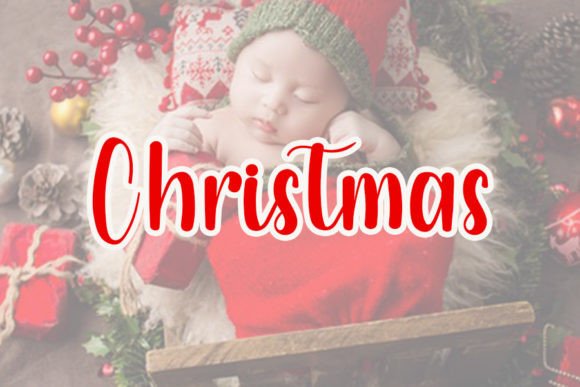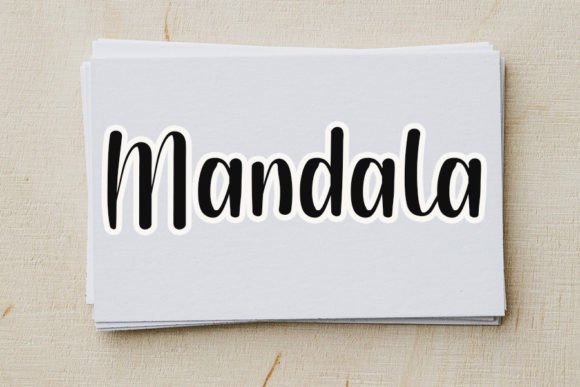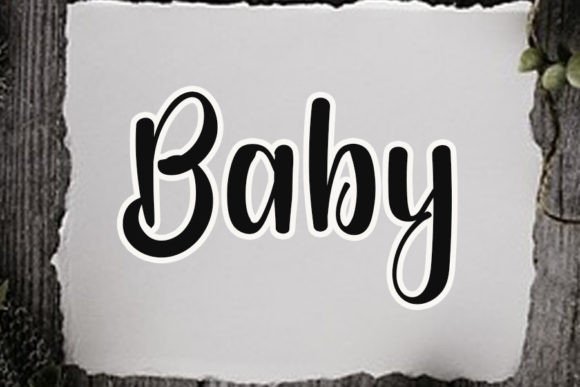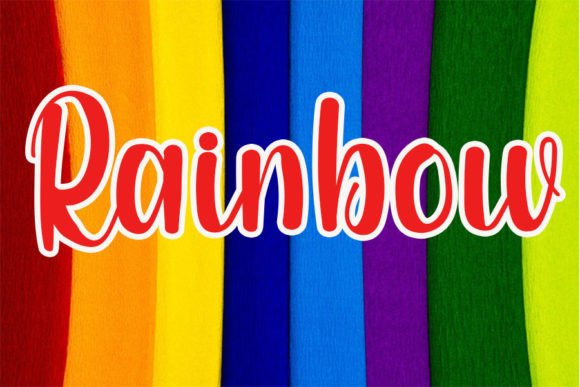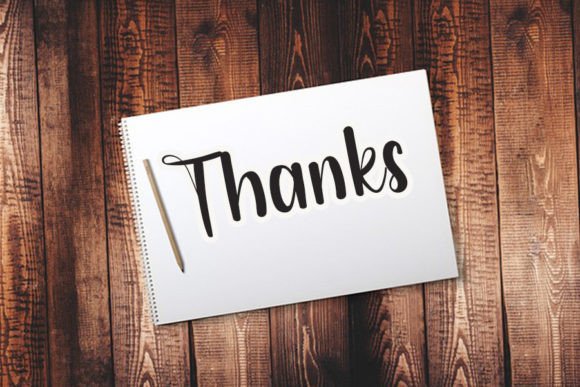
The Wintersnow Font Download is a cool handwritten typeface that blends modern elegance with timeless calligraphy. Designed with spotless precision, this font features smooth curves and balanced strokes, making it an excellent choice for a wide range of design projects. Not too thin and not too thick, Wintersnow achieves perfect harmony, allowing your text to remain stylish while still being easy to read.
Its versatility ensures that the Wintersnow Font Download adapts to both casual and professional projects. Whether you are crafting wedding invitations, designing logos, or creating social media content, Wintersnow adds a refined yet approachable charm.
Features of Wintersnow Font
The Wintersnow Font Download includes a full set of features that make it user-friendly and adaptable for different creative needs:
• Modern handwritten style inspired by calligraphy traditions
• Uppercase and lowercase characters
• Numbers, punctuation, and symbols
• PUA-encoded for easy access to special characters and alternates
• Multilingual support for global use
These features make Wintersnow ideal for both experienced designers and creative beginners.
Best Uses for Wintersnow Font
The Wintersnow Font Download is suitable for a wide variety of applications. Its balance of elegance and readability makes it especially versatile:
• Wedding Invitations & Event Stationery – Adds a graceful touch to your special day
• Logos & Branding – Perfect for businesses that want a modern handwritten identity
• Social Media Graphics – Enhances quotes, captions, and posts with stylish flair
• Product Packaging – Works beautifully on labels, tags, and merchandise
• Print Design – Ideal for posters, books, and magazine layouts
• Crafting & DIY Projects – A great choice for journals, planners, and handmade projects
Because Wintersnow combines a clean form with artistic expression, it can be used for both small details and bold headlines.
Why Choose Wintersnow Font?
The Wintersnow Font Download is perfect for creatives who want a balance between elegance and practicality. While some handwritten fonts are too decorative to be functional, Wintersnow remains highly readable without sacrificing style. Its smooth, consistent strokes make it look refined on everything from digital screens to printed materials.
Transitioning from one project to another is effortless with Wintersnow. You can confidently apply it to multiple design types, knowing it will deliver clarity, personality, and sophistication every time.
The Wintersnow Font Download is a must-have typeface for designers, crafters, and business owners who want to add elegance, creativity, and modern flair to their work. With its spotless form and calligraphy-inspired style, Wintersnow is both timeless and trendy.